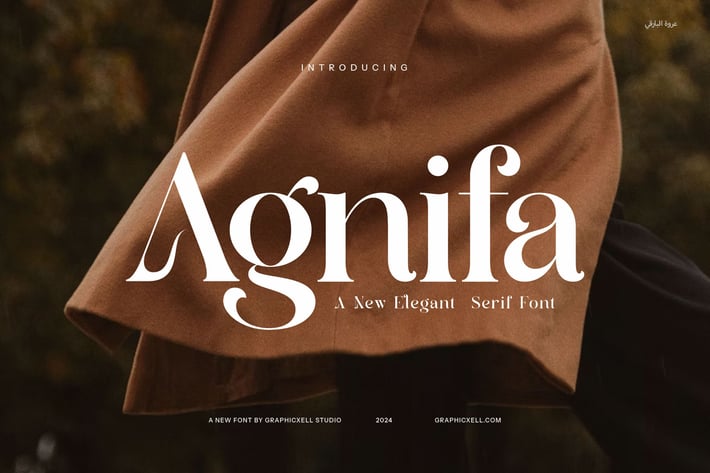
Agnifa - Elegant Serif Font
Agnifa Elegant Serif Font is a stunning typeface that seamlessly combines modern sophistication with vintage charm. With its unique, beautifully crafted letterforms, this font exudes elegance and timeless appeal, making it the perfect choice for high-end design projects. Whether you're designing a logo, building a brand, or creating visually captivating layouts, Agnifa brings an air of luxury and refinement to every design.
Designed to stand out, Agnifa Elegant Serif Font features smooth curves and strong serifs, offering both readability and style. Its distinctive character is ideal for logos, branding, websites, and promotional materials. This versatile font shines in a variety of applications, including product packaging, advertisements, boutiques, food-related designs, and much more. Its elegant aesthetic effortlessly complements upscale brands and premium products, elevating your project with a touch of class.
Agnifa is especially well-suited for editorial design, magazine layouts, and creative marketing campaigns. Its blend of modernity and vintage influences makes it perfect for businesses and creatives who want to convey both tradition and forward-thinking sophistication. The font’s refined details and balanced structure provide excellent readability while maintaining a luxurious, high-end feel.
Whether you are designing a website, creating a product label, or crafting a brand identity, Agnifa Elegant Serif Font will add the perfect finishing touch to your designs, making them stand out with elegance and distinction. Perfect for those who seek beauty, style, and versatility in a font.
Designed to stand out, Agnifa Elegant Serif Font features smooth curves and strong serifs, offering both readability and style. Its distinctive character is ideal for logos, branding, websites, and promotional materials. This versatile font shines in a variety of applications, including product packaging, advertisements, boutiques, food-related designs, and much more. Its elegant aesthetic effortlessly complements upscale brands and premium products, elevating your project with a touch of class.
Agnifa is especially well-suited for editorial design, magazine layouts, and creative marketing campaigns. Its blend of modernity and vintage influences makes it perfect for businesses and creatives who want to convey both tradition and forward-thinking sophistication. The font’s refined details and balanced structure provide excellent readability while maintaining a luxurious, high-end feel.
Whether you are designing a website, creating a product label, or crafting a brand identity, Agnifa Elegant Serif Font will add the perfect finishing touch to your designs, making them stand out with elegance and distinction. Perfect for those who seek beauty, style, and versatility in a font.